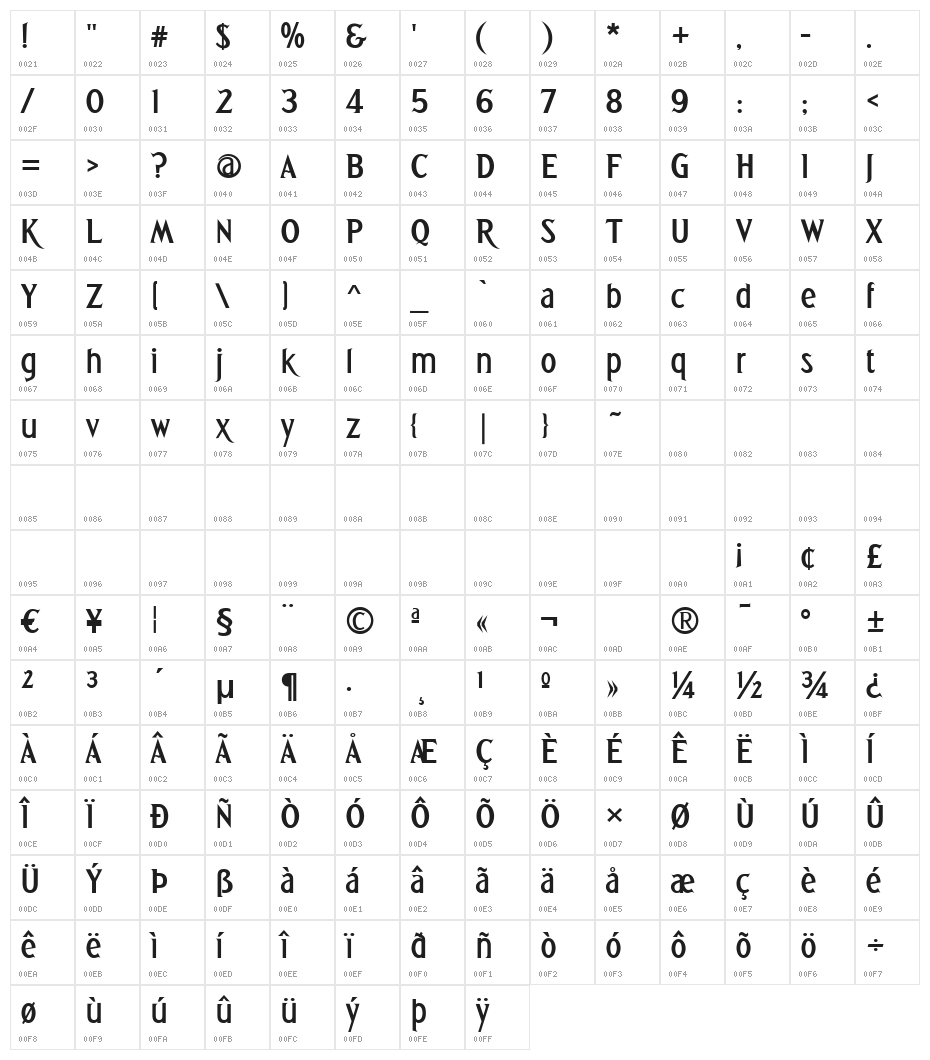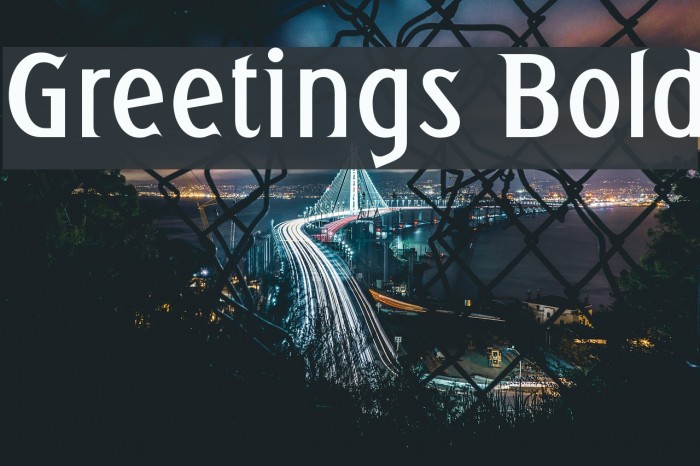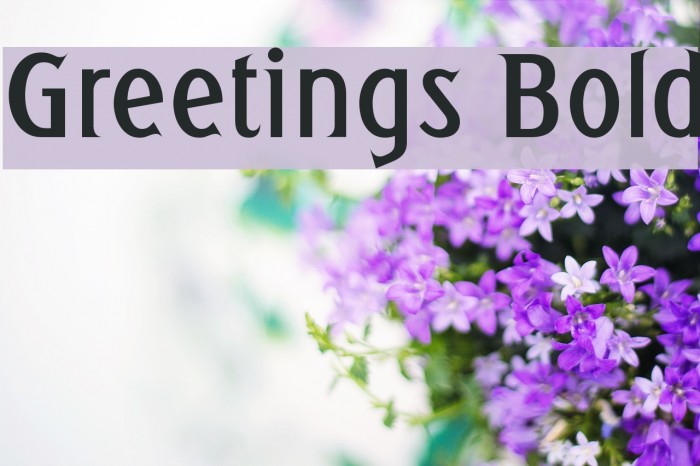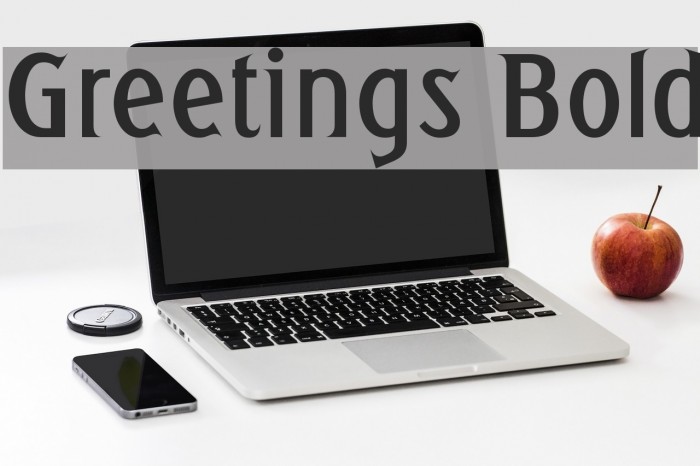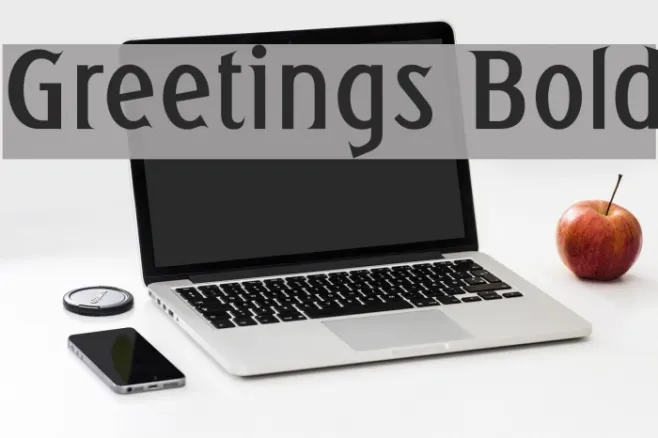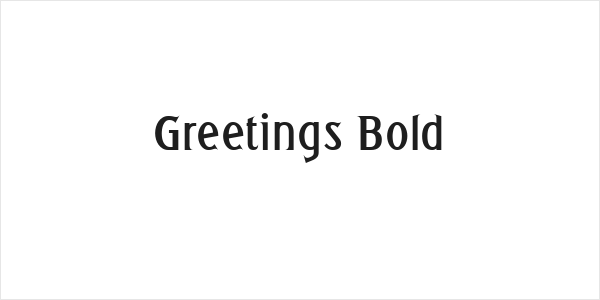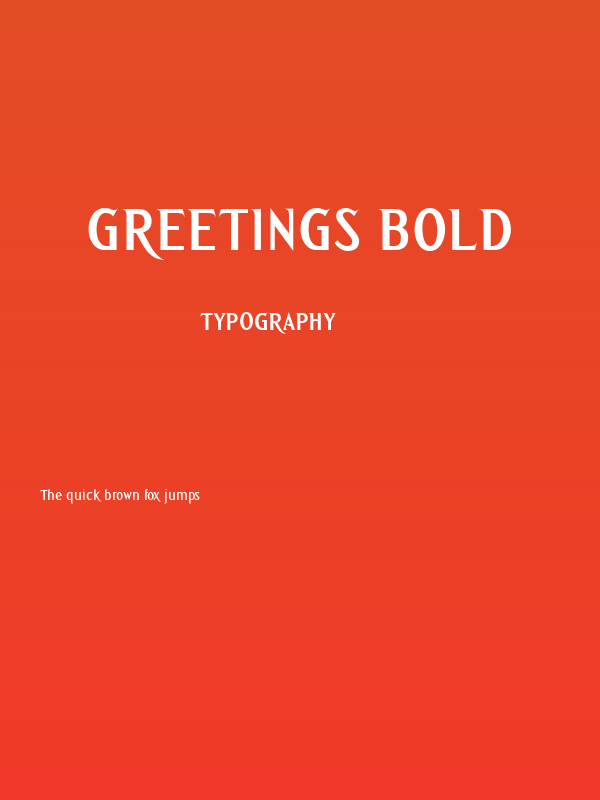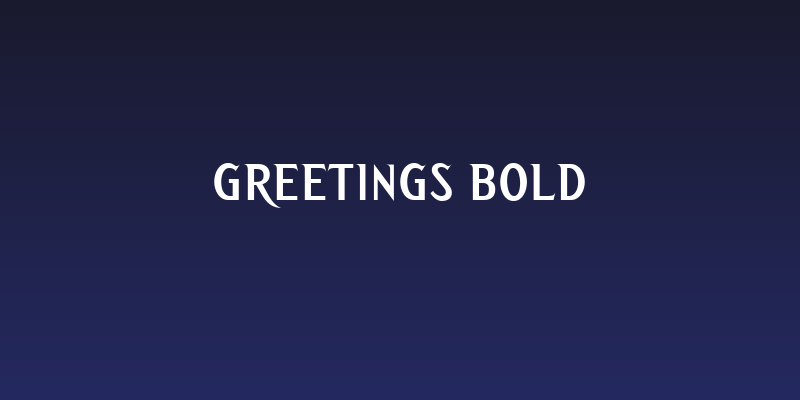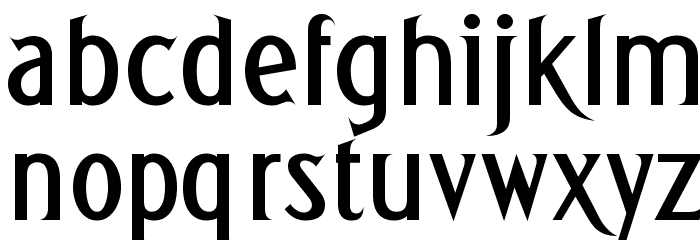
Greetings Bold Font
Greetings Bold Description
This font features a bold and dynamic style with sharp, angular serifs that give it a distinctive and striking appearance. The uppercase letters are particularly prominent, with a strong presence that commands attention. The lowercase letters maintain a consistent style, offering a harmonious blend with the uppercase. The numerals are clear and robust, ensuring readability. Special characters are well-defined, adding versatility to the font. Overall, this font exudes a sense of strength and modernity, making it suitable for impactful designs.